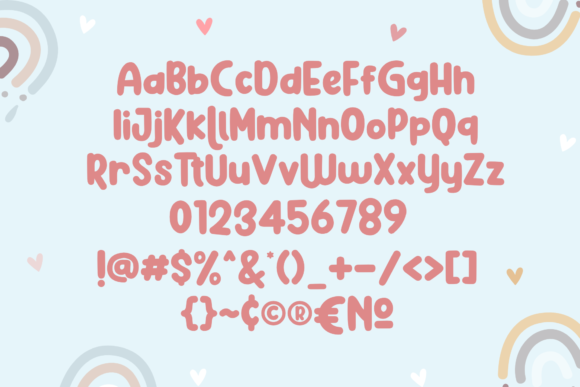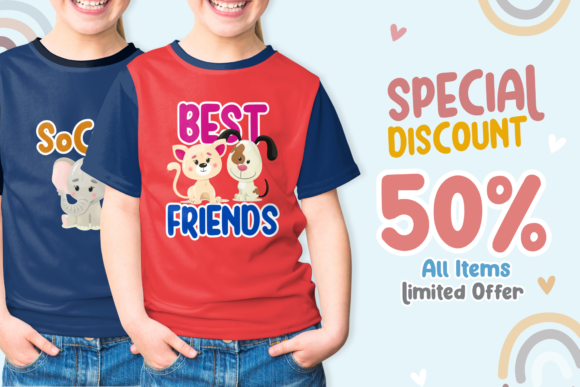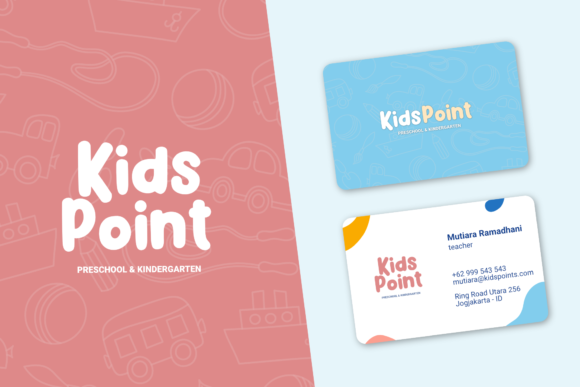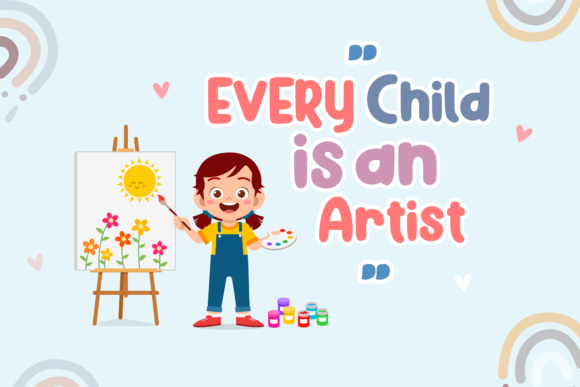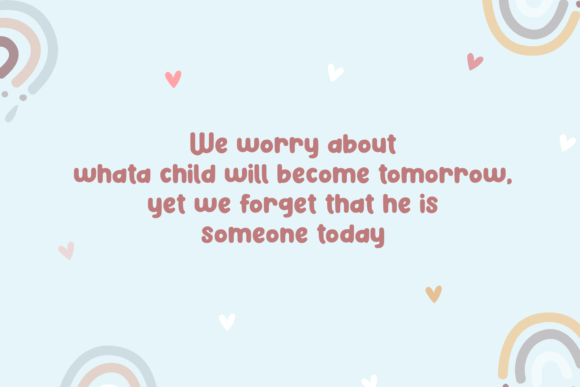
Introduction to Kidsfest Font
Do you remember the excitement of planning a birthday party or creating a DIY craft project for your little ones? The anticipation, the creativity, and the joy that comes with it is truly magical. As designers, we often look for ways to add that extra special touch to our projects, making them truly unforgettable. That’s where the Kidsfest Font comes in – a high-quality, adorable display font that is sure to bring a smile to anyone’s face.
With its transparent background and playful design, the Kidsfest Font is a valuable design resource for any creative project. Whether you’re working on a school project, crafting designs for a children’s party, or simply need a happy touch for your design, this font is sure to deliver. And the best part? It’s available for a free download, making it an accessible addition to your design toolkit.
As designers, we’re always on the lookout for unique and high-quality design resources that can elevate our work. The Kidsfest Font is a standout in this regard, offering a fun and creative way to add a personal touch to your projects. In this article, we’ll delve deeper into the world of the Kidsfest Font, exploring its features, uses, and benefits for designers.
Key Features of Kidsfest Font
- High-quality design: The Kidsfest Font is designed with precision and care, ensuring a professional look for any creative project.
- Unique characteristics: The Kidsfest Font features a playful and whimsical design, making it ideal for children’s books, educational materials, and other creative projects that require a fun and engaging look.
Honest Review: Kidsfest Font
I recently stumbled upon the Kidsfest Font, a free download that caught my eye for its playful and vibrant style. As a designer, I appreciate a good design resource, and this font definitely fits the bill. The transparent background makes it easy to work with, and the bold lines give it a fun and energetic feel.
- What works well: ✨ The font’s high-quality design and bold lines make it perfect for creative projects that require a playful touch.
- What works well: ✨ The transparent background allows for seamless integration with other design elements.
However, I did encounter some limitations with the Kidsfest Font. ⚠️ The font’s lack of versatility in terms of style and format can make it feel a bit one-dimensional. Additionally, the font’s size can become overwhelming in certain contexts, making it difficult to read.
Overall, I would recommend the Kidsfest Font for designers working on creative projects that require a fun and playful touch. While it has its limitations, its high-quality design and transparent background make it a valuable addition to any design resource library.